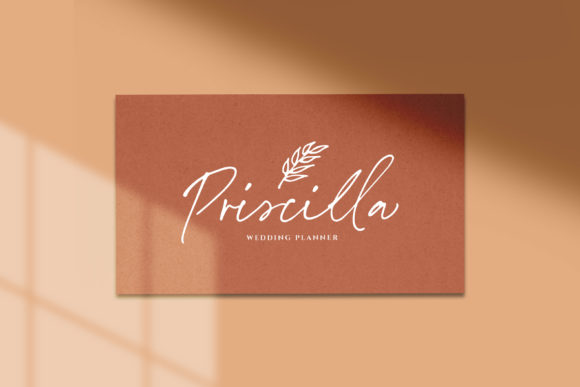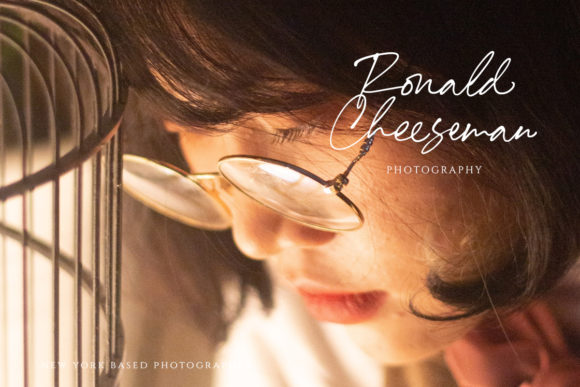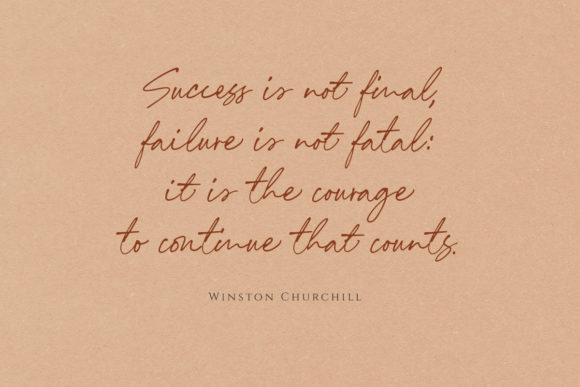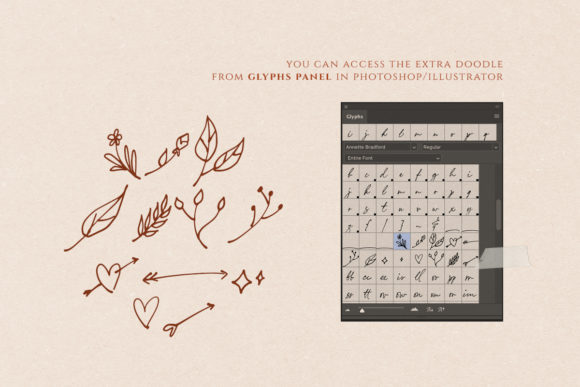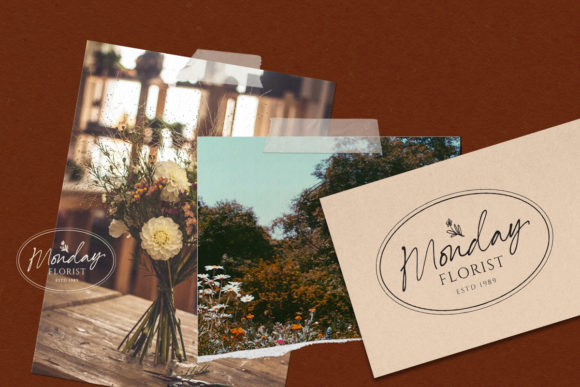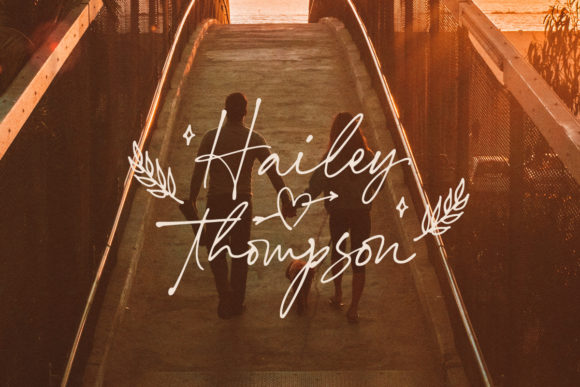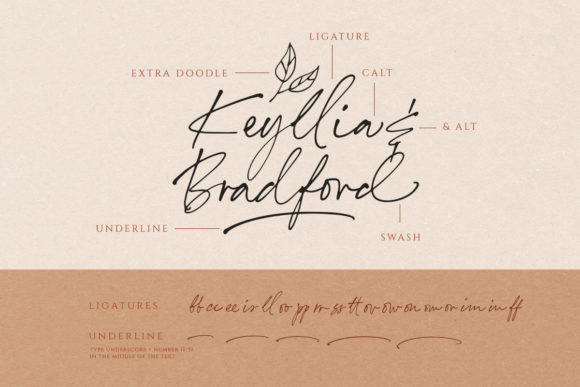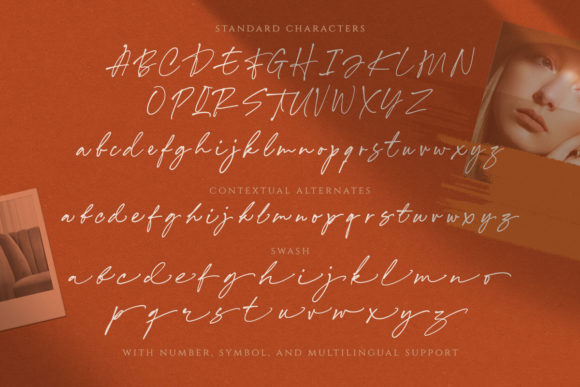
Annette Bradford Font
About Annette Bradford Font
Annette Bradford is a delicate and lovely handwritten font. It is PUA encoded which means you can access all of the glyphs and swashes with ease! It features a varying baseline, smooth lines, gorgeous glyphs and stunning alternates. Fall in love with its incredibly versatile style and use it to create gorgeous wedding invitations, beautiful stationary art, eye-catching social media posts, and much more!